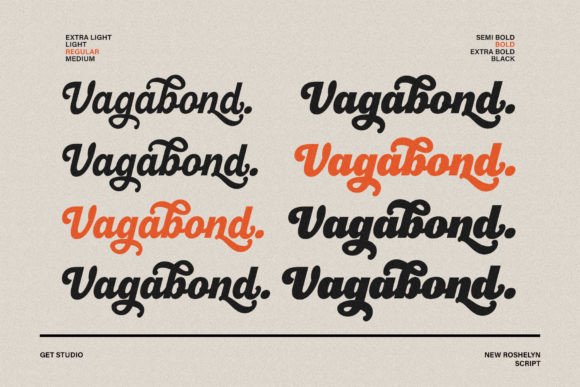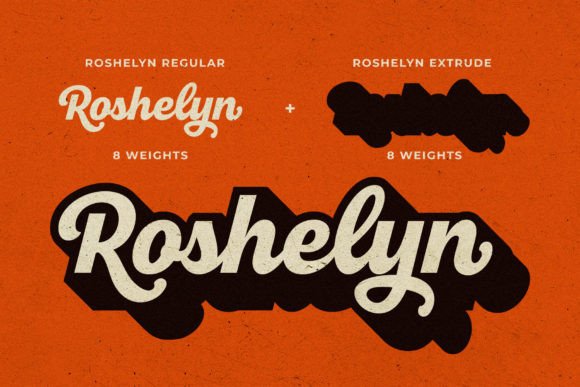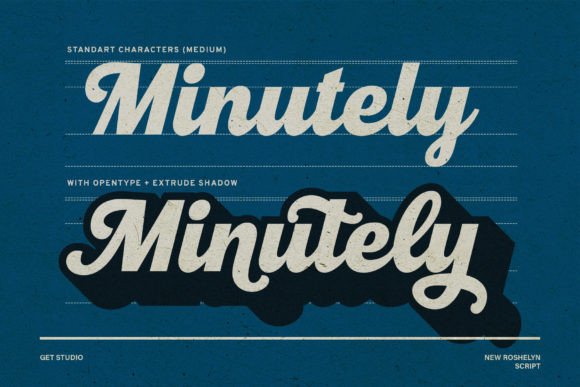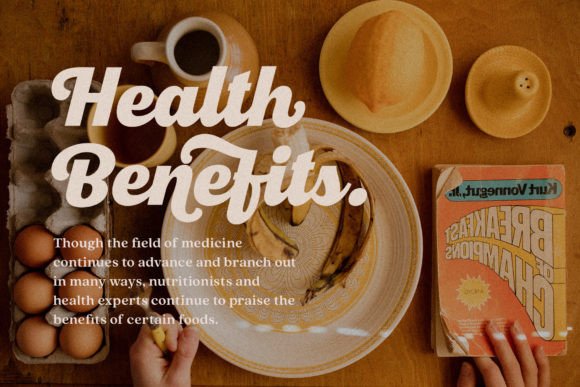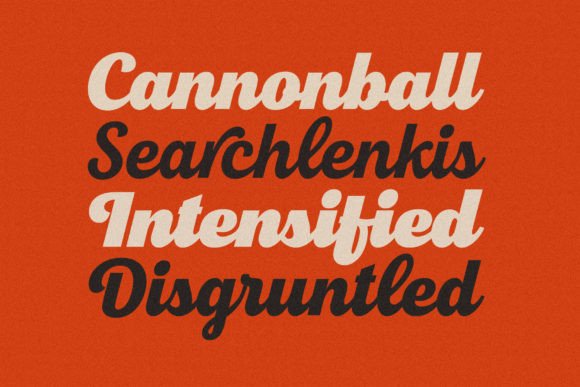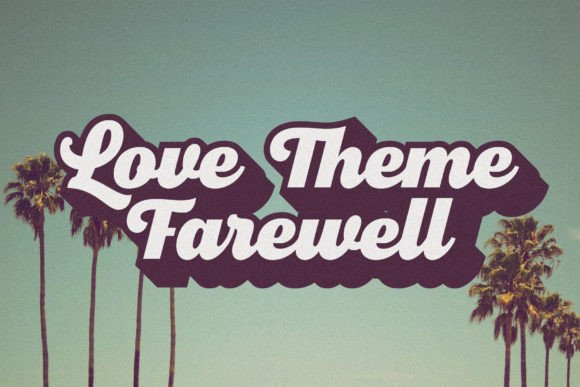
Introduction to New Roshelyn Font
Introducing New Roshelyn, a stylish, carefully crafted, and nicely balanced script typeface with a powerful personality.
The flowing characters are ideal for creating cool and attractive designs .
Key Features of New Roshelyn Font